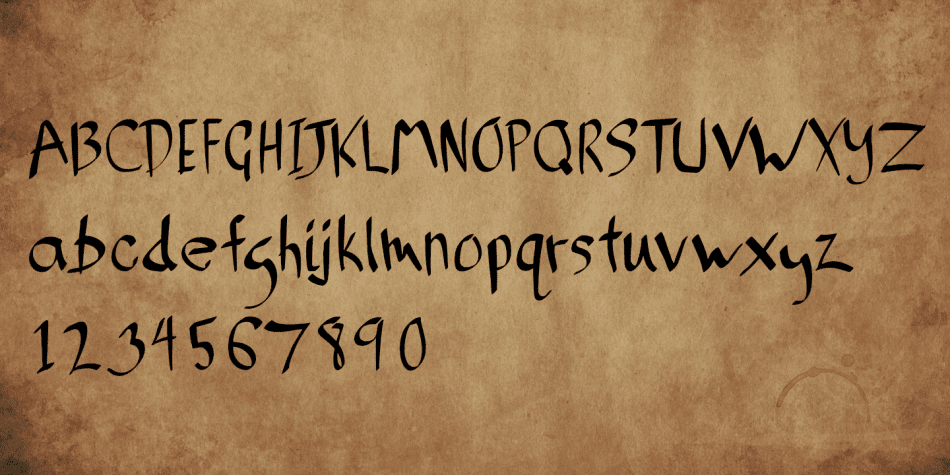
| Designed by Kent Swecker, Chisel Brush is a hand drawn and brush script font published by A New Machine. |
Chisel Brush is a handmade font created with a, um, chisel brush… It has a casual handmade feel that works well at larger sizes in headers or titles.
Also works great in branding applications.